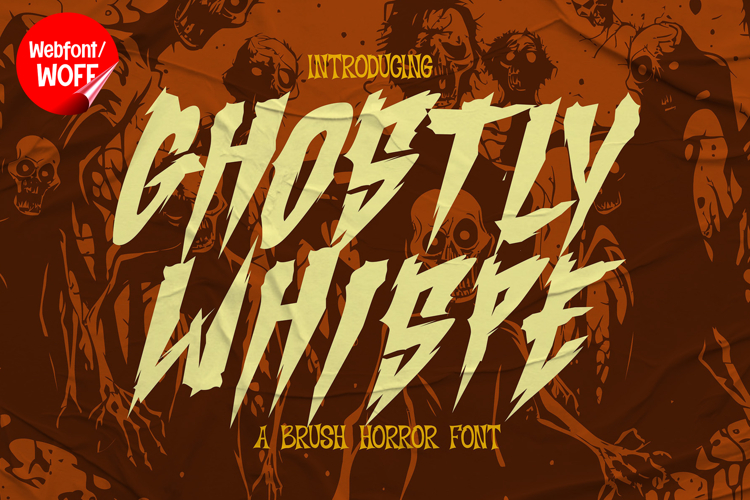
Ghostly Whispe | Halloween Horror Webfont for Spooky Design
Ghostly Whispe is a Halloween horror webfont designed to create a chilling and mysterious atmosphere for modern website design. Inspired by ghost stories, eerie shadows, and supernatural themes, this font features haunting letterforms with subtle distortions and unsettling details. It is an excellent choice for projects that aim to deliver a dark, immersive, and spine-tingling visual experience.
Ghostly Whispe includes a complete set of uppercase characters designed with horror-inspired shapes. The letterforms feature irregular edges and ghost-like distortions that give a floating and eerie feel. These characteristics make the font ideal for headlines, banners, hero sections, and featured content where a haunting and dramatic presence is needed.
In addition to letters, the font includes numbers and punctuation, allowing flexible usage across various parts of a website. It works well for Halloween promotions, horror-themed content, event announcements, and call-to-action sections. Each character maintains a consistent spooky style, ensuring a cohesive and unified visual identity throughout the layout.
With multilingual support, Ghostly Whispe includes a wide range of accented characters, making it suitable for international websites and global audiences. This allows content to be displayed clearly across different languages while preserving the eerie and atmospheric aesthetic.
The Halloween horror style of Ghostly Whispe makes it especially suitable for seasonal websites, haunted attractions, horror games, themed blogs, and entertainment platforms. Its ghostly and mysterious appearance adds suspense and character, helping websites stand out with a unique and immersive look. The subtle distortions enhance the storytelling aspect of design.
Despite its stylized and eerie appearance, Ghostly Whispe is designed with readability in mind. The spacing and proportions are carefully balanced to ensure clarity, particularly in display sizes. This makes it effective for impactful headings and short content elements where both style and usability are important.
Ghostly Whispe is a webfont that combines horror aesthetics with modern digital performance. Its haunting shapes, ghost-like details, and atmospheric style create a distinctive typographic presence that enhances website design. For projects that require a spooky, dramatic, and visually engaging font, Ghostly Whispe offers a powerful and memorable solution.